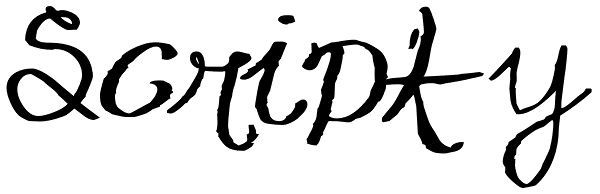
Scripty
Scripty is a hand drawn, calligraphy longhand handwritten font. With careful spacing, the letters can be used together to create words that look like theyπve been written with an old≠fashioned fountain pen, or used alone as embellishment to more...